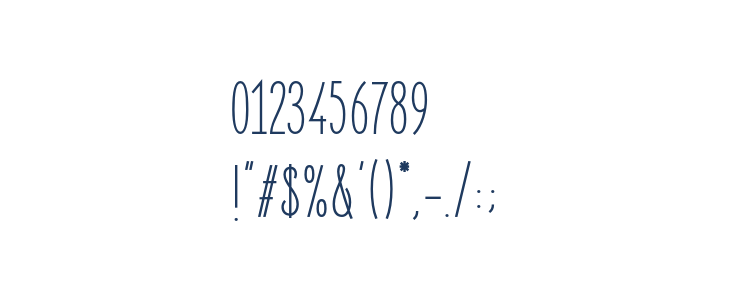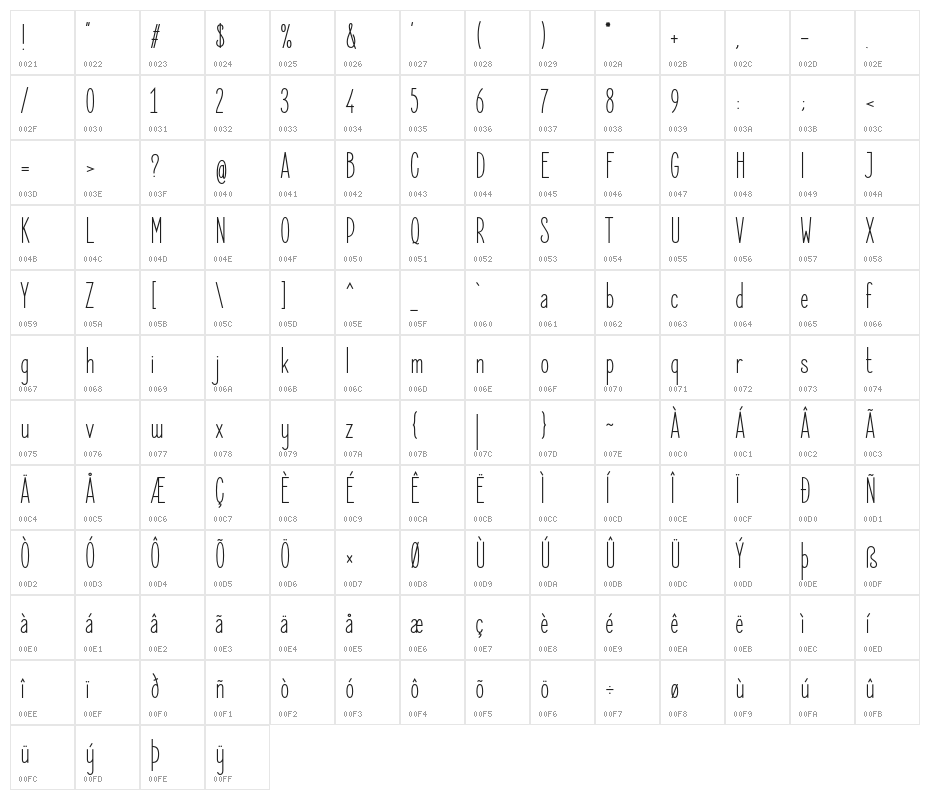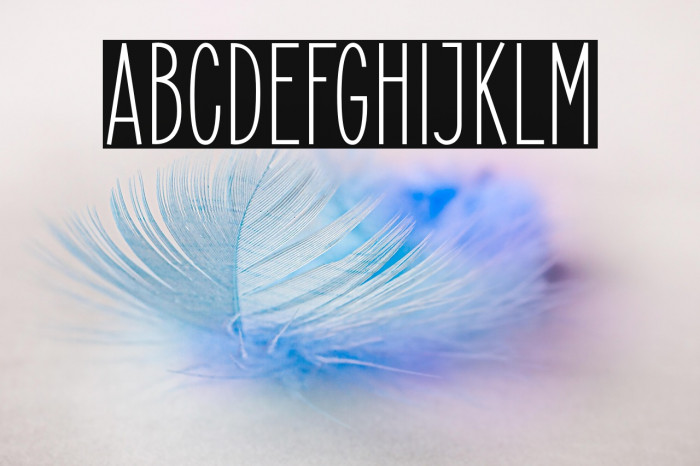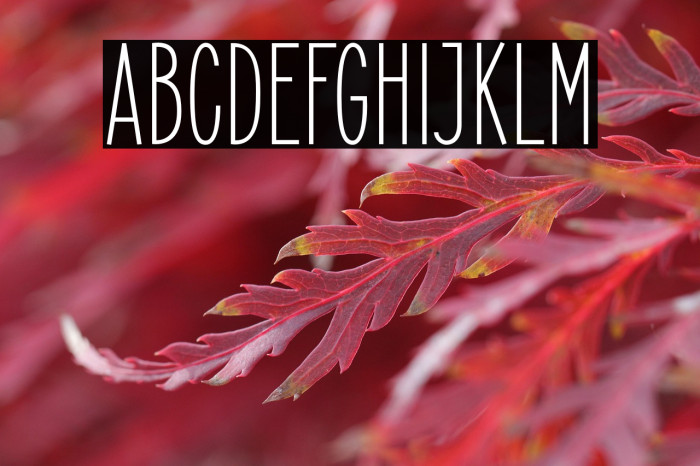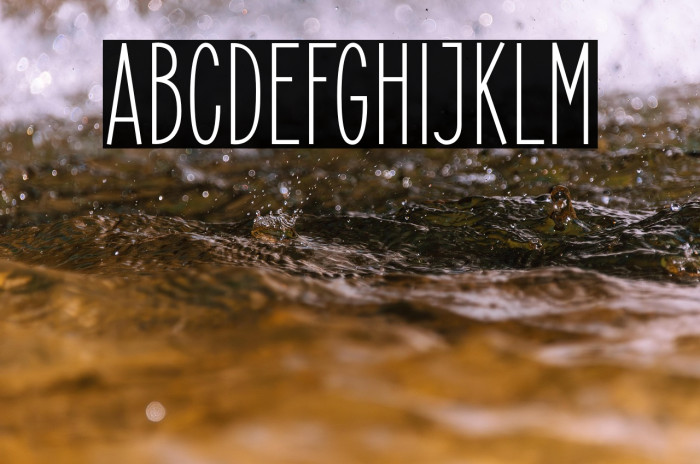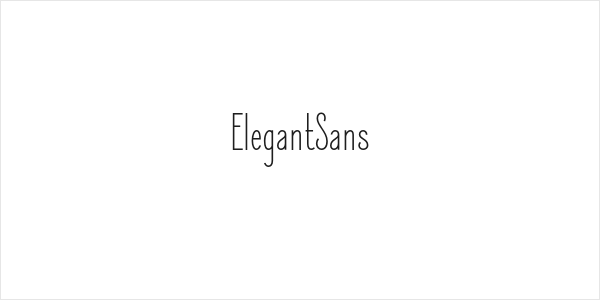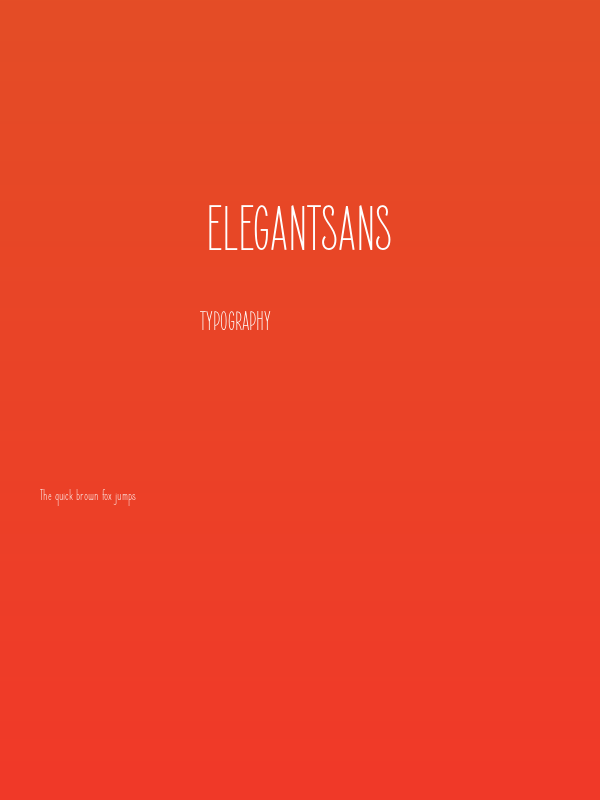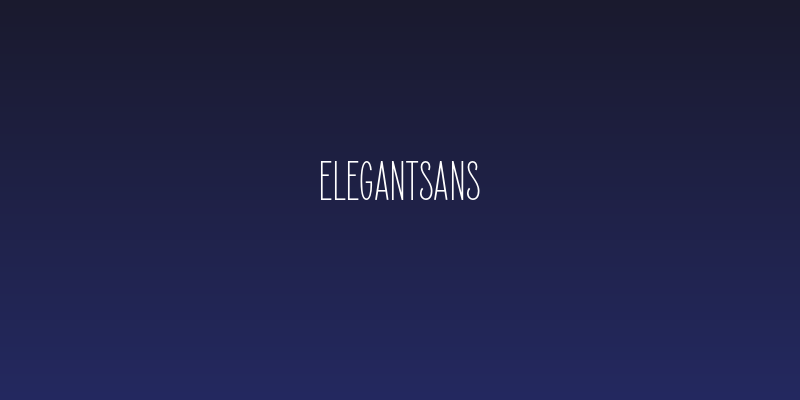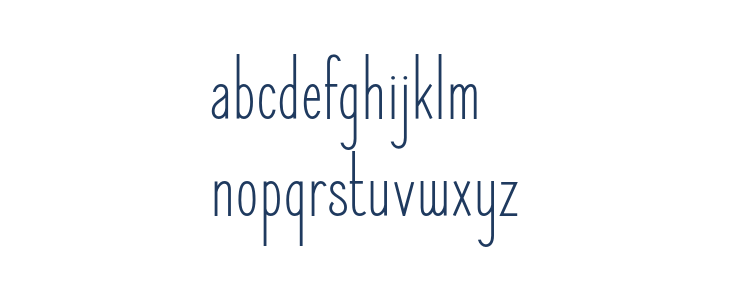
ElegantSans Font
ElegantSans Description
This font features a tall, slender design with clean lines and a modern aesthetic. The characters are evenly spaced, providing a balanced and harmonious appearance. The uppercase letters are particularly elongated, giving a sense of elegance and sophistication. The lowercase letters maintain a consistent style, complementing the uppercase with their smooth curves and uniform height. The numerals are clear and legible, matching the overall sleek design. Special characters are included, maintaining the font's cohesive look. This font is versatile, suitable for various design projects that require a contemporary and refined touch.
| Proposed Projects | Ideal for branding, editorial design, fashion magazines, and minimalist websites. |